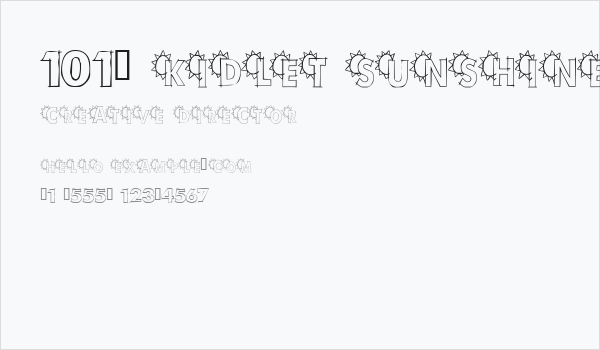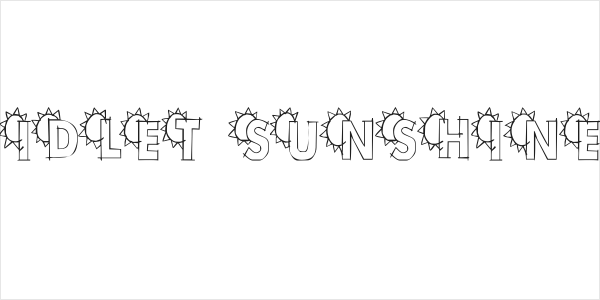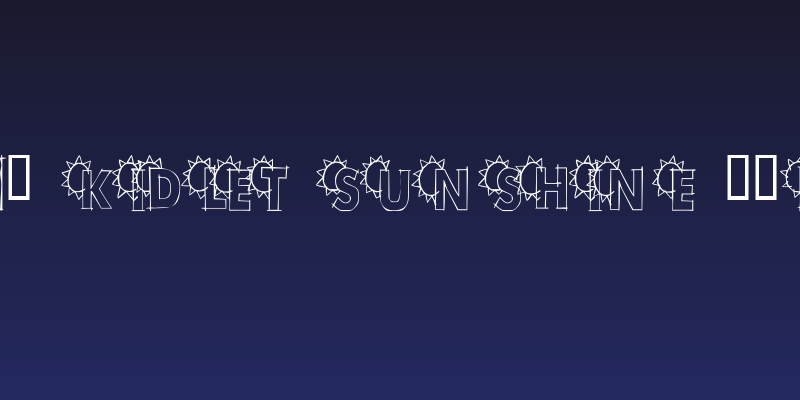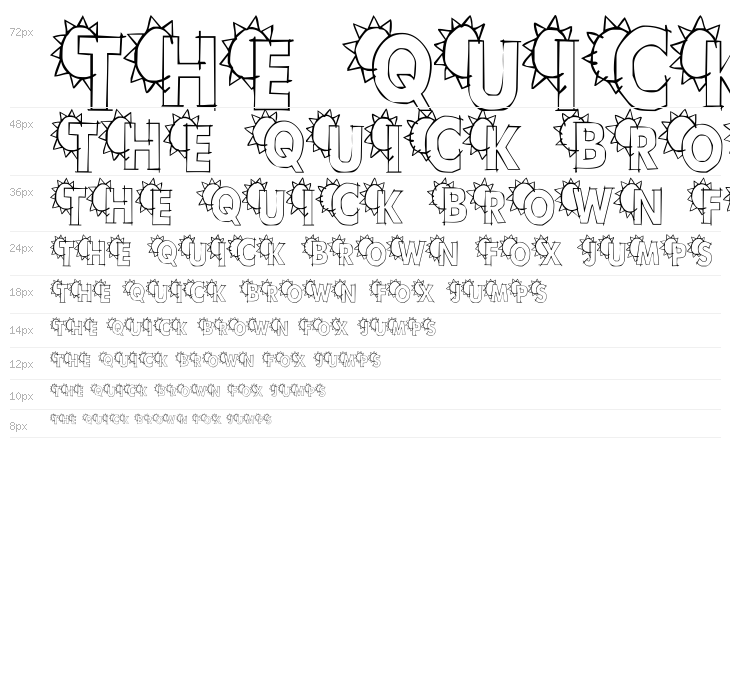
101! Kidlet Sunshine 'Bet Font
101! Kidlet Sunshine 'Bet Description
This playful and whimsical font features a unique design where each letter is adorned with a sunburst pattern, giving it a cheerful and lively appearance. The uppercase and lowercase letters maintain a consistent style, with bold outlines and a slightly rounded form. The numbers are similarly styled, ensuring a cohesive look across all characters. The special characters are framed in a rectangular outline, adding a distinct touch to the overall design. This font is perfect for projects that aim to convey a sense of fun and creativity, making it ideal for children's books, educational materials, and playful branding.